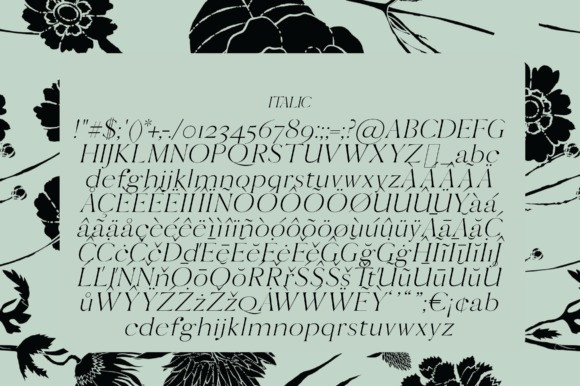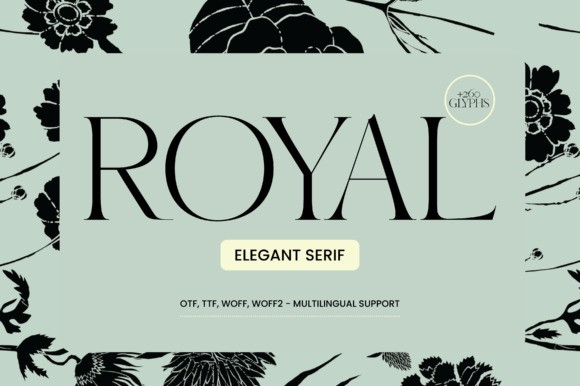
Royal Typeface
Royal Typeface is a delicate, feminine, and elegant serif typeface. Its simple aspect and perfectly curved construction render it a valid choice when you are designing elegant, luxurious, or feminine stuff. Use it in your creative ideas and notice how much power it holds inside.